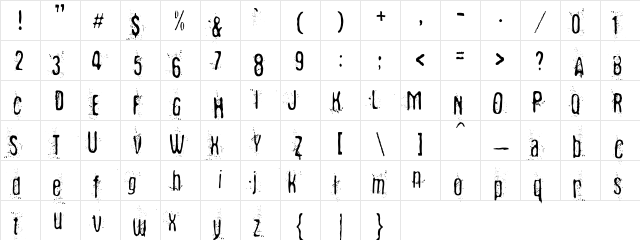
Fibyngerowa Regular
| Foundry | Bumbayo Font Fabrik |
Design Context for Fibyngerowa Typeface
Fibyngerowa is a composed and adaptable typeface that performs quietly and consistently across a wide range of design contexts.